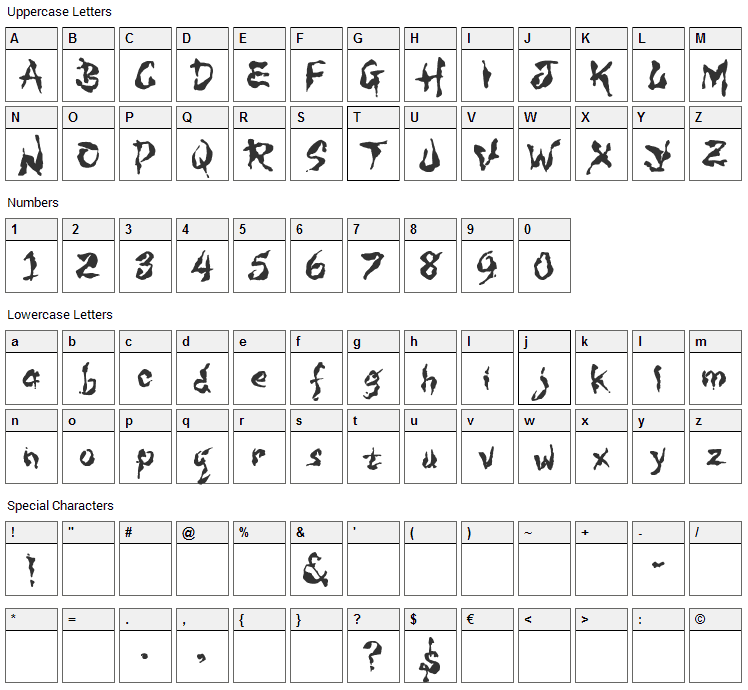
WILD3 Infected Hurt Font
Font Name:WILD3 Infected Hurt
Developer:Fontry
Category:Script > Trash
Scrawled and scratched until it hurts, this face is an affliction turned infection--or is it just waiting for a ripe time to infest your font list? Might as well download it and try it out. Infected Hurt never goes away--not silently, of course.